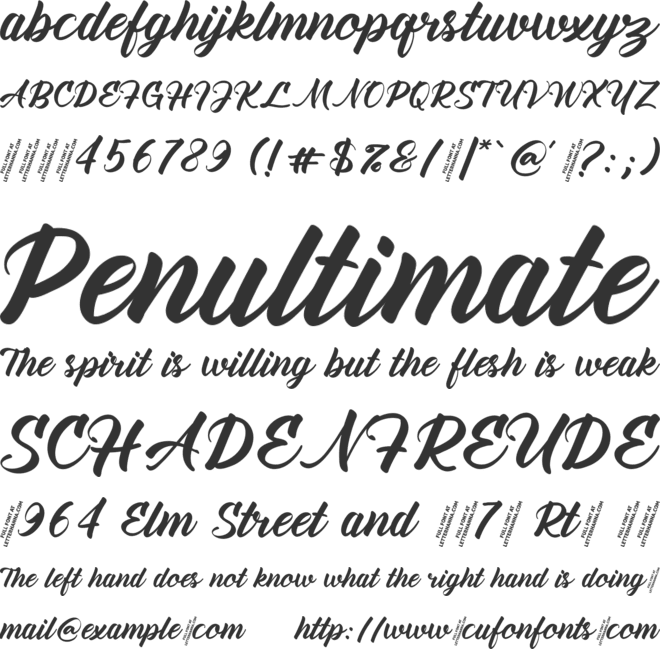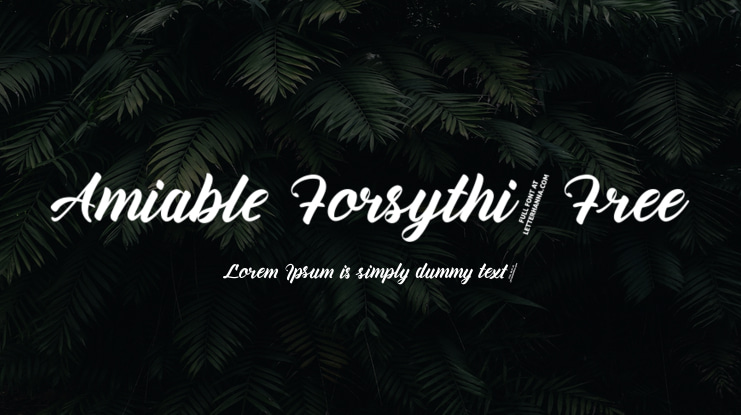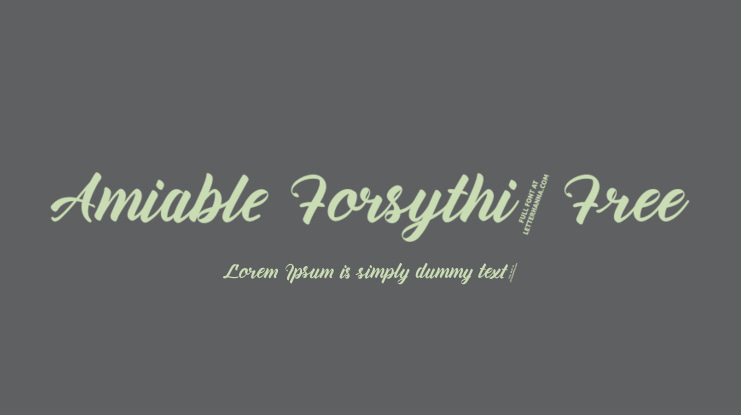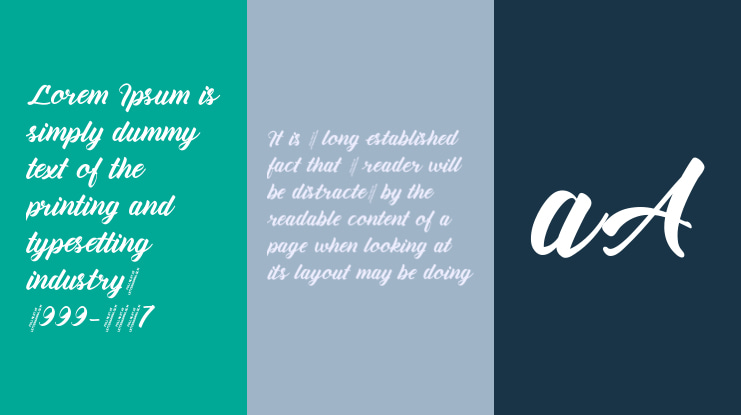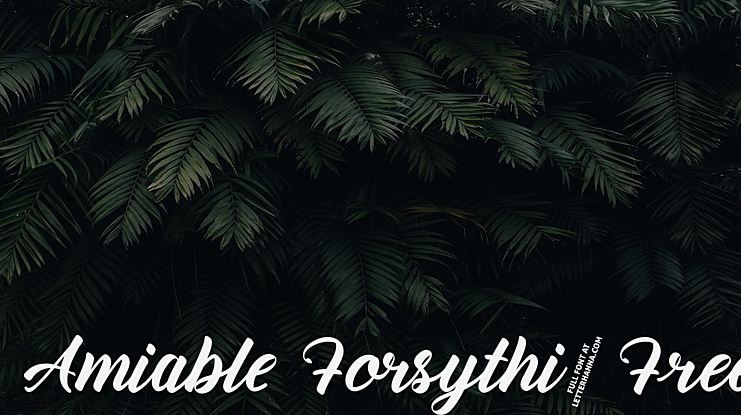
Amiable Forsythia Free Font
Amiable Forsythia Script Font – a new modern, clean & fresh script with a lot of swashes and stylistic alternate, make this font looks elegant, natural, stylish and perfect for any awesome projects
Amiable Forsythia comes with stylistic alternate, ligatures, swashes, and multilingual support.
- Uppercase and Lowercase letters
- Numbering and Punctuations
- Multilingual Support
- Ligatures
- Beginning and ending swashes
- Underline swashes
- Stylistic alternate.